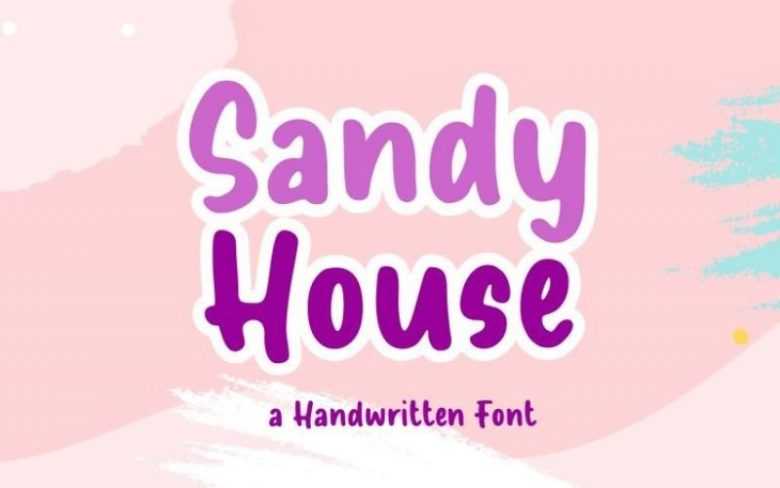
Sandy House Display Font
Sandy House is a fun Handwritten Font, this font Is perfect for lproduct packaging, product designs, label, photography, watermark, special events or anything.
Sandy House comes with uppercase and lowercase letters, multilingual symbols, numerals, punctuation.